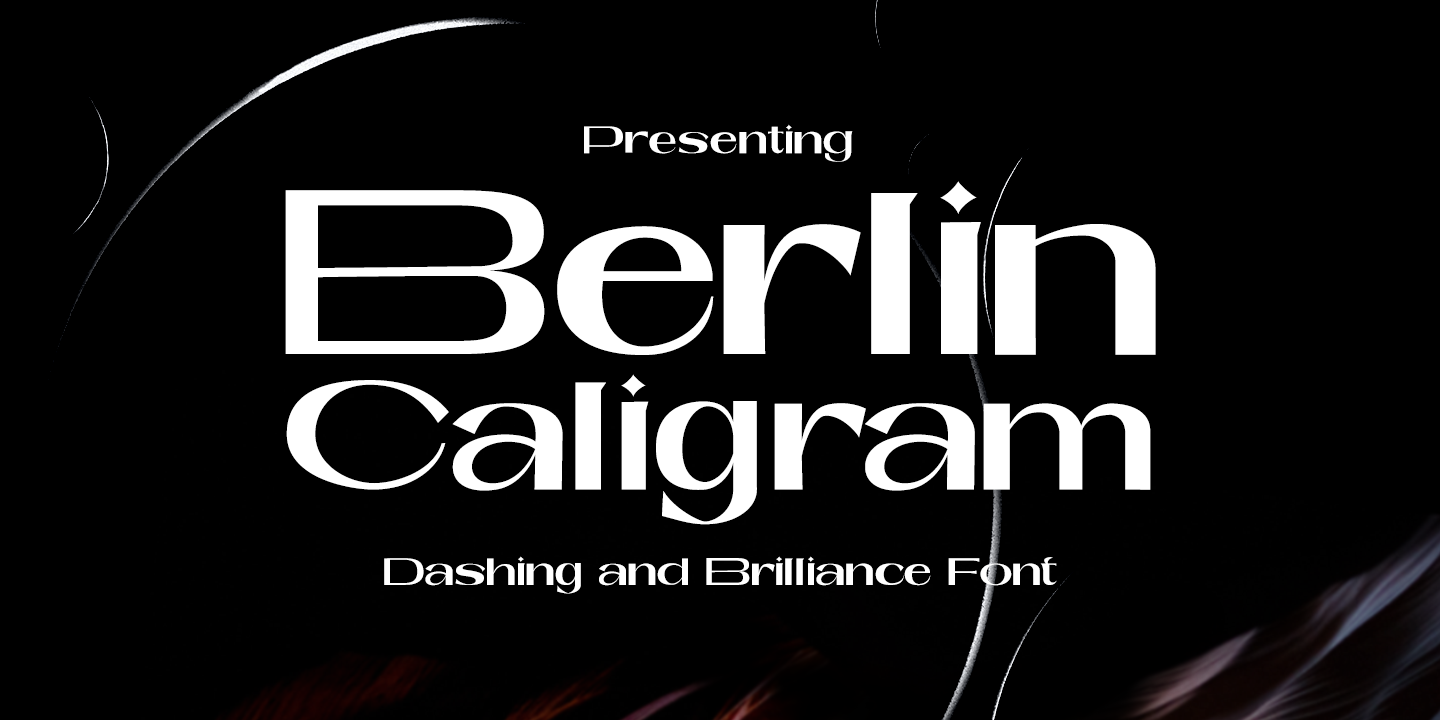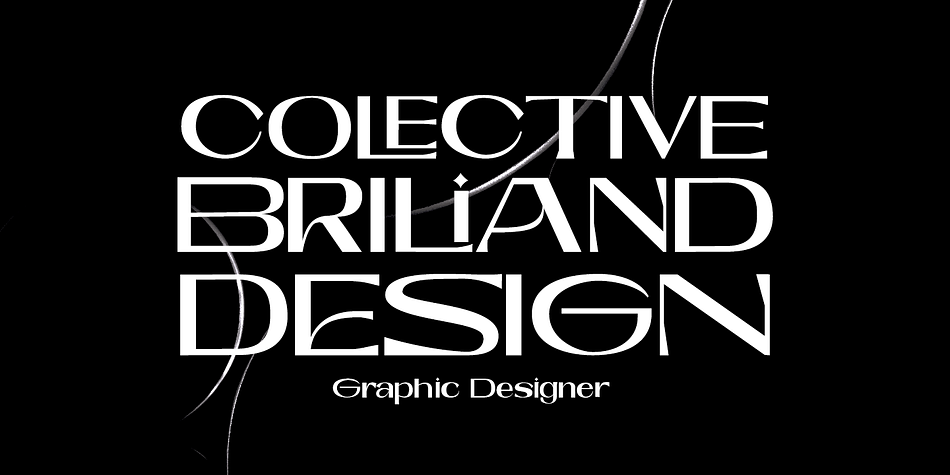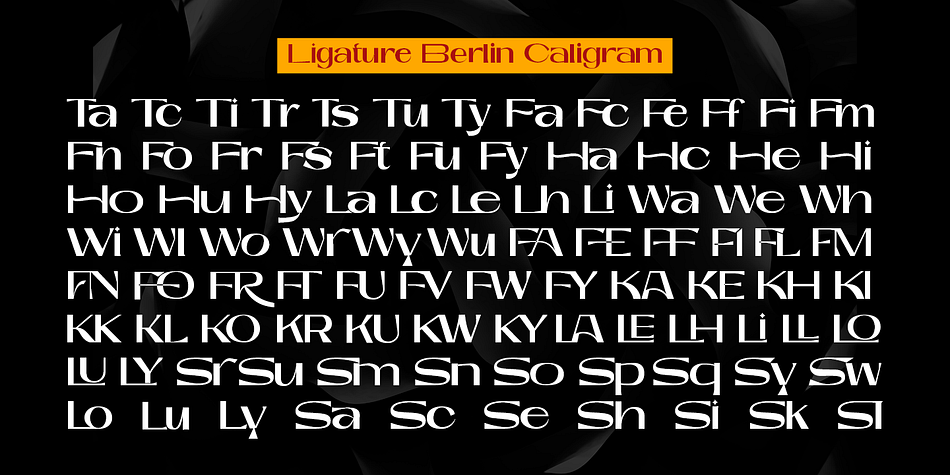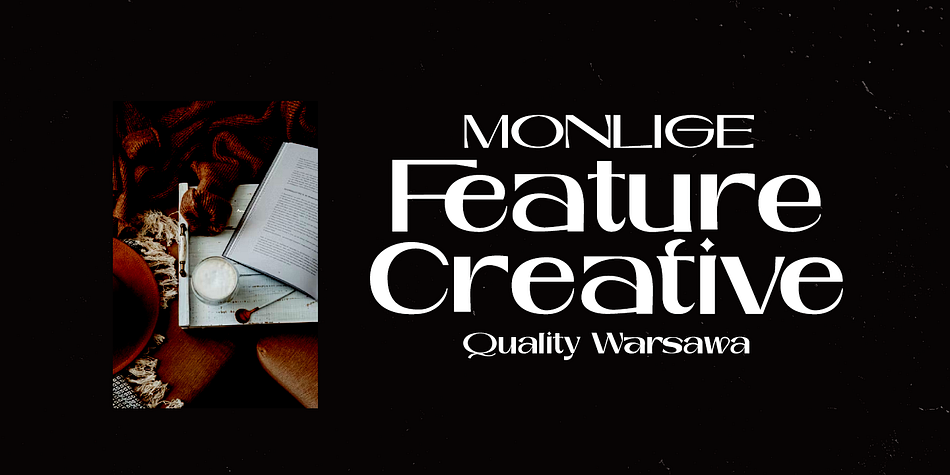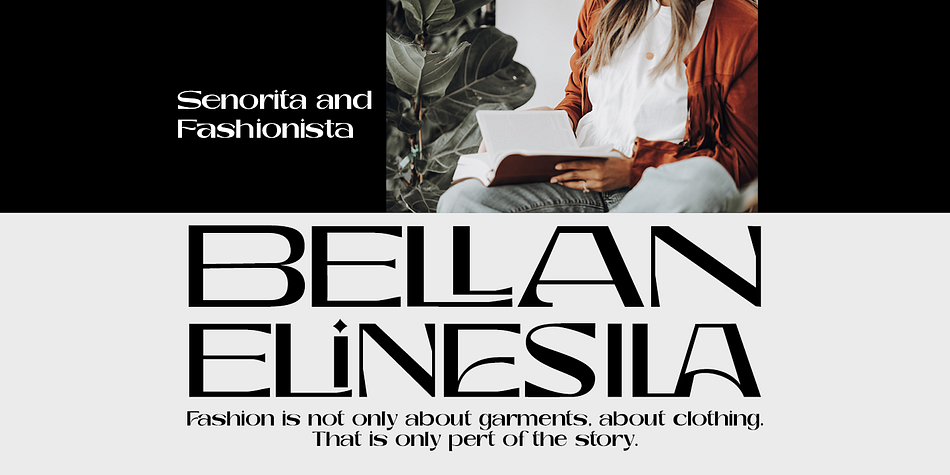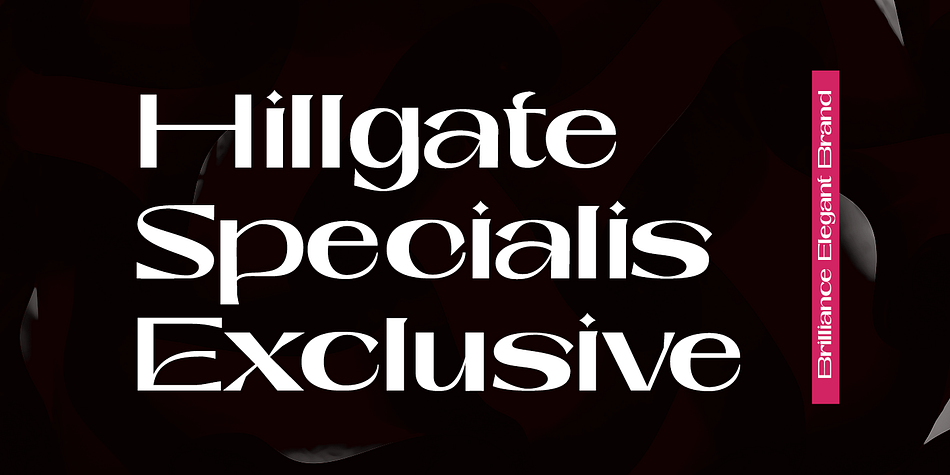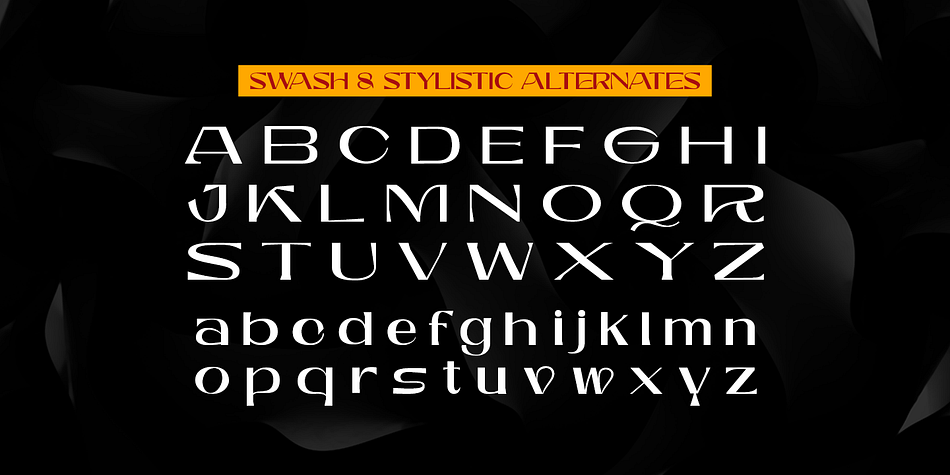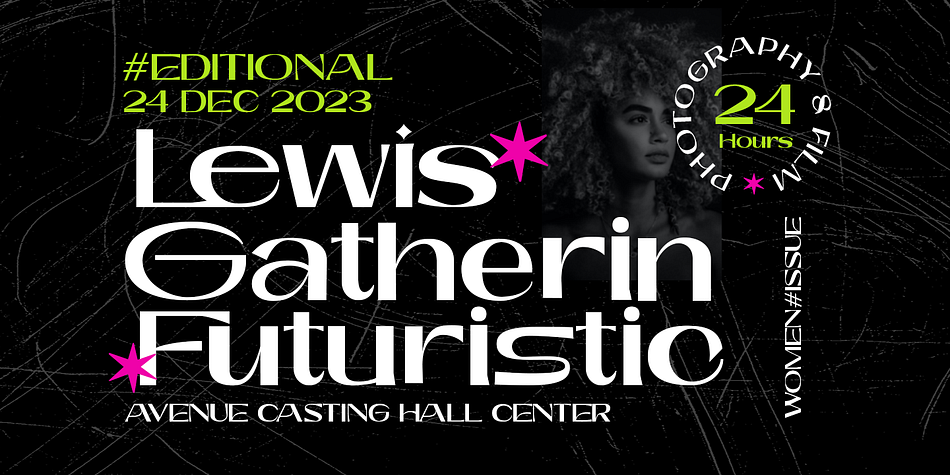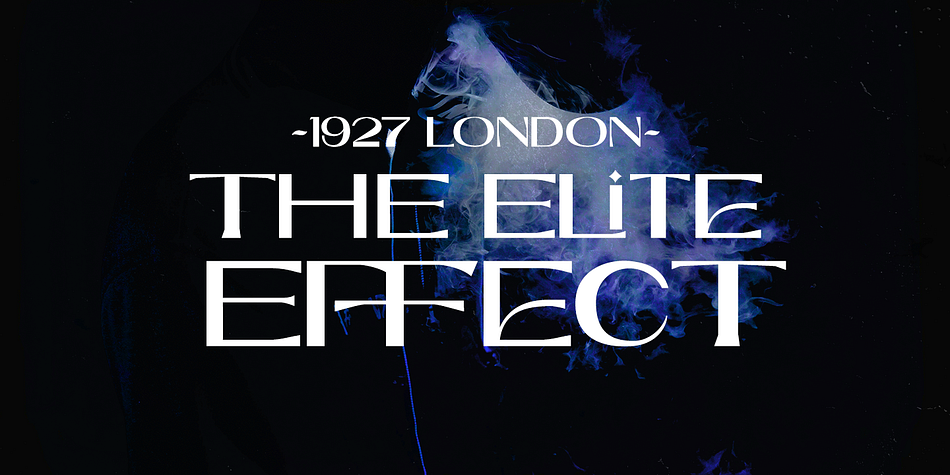
Berlin Caligram
Berlin Caligram is an art nouveau and display sans font family published by Genesislab.
Berlin Caligram is a fancy yet elegant display font. characters that are suitable for today’s style will be very interesting for you to create any design work with a classy model that maintains a calm and classy style to look at.